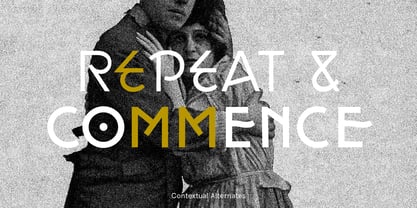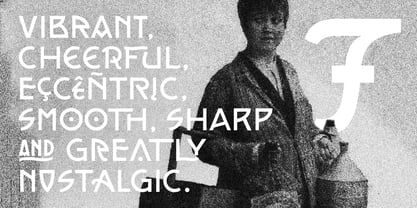
Fadista
by Alex Beck
Fadista Font Family was designed by Alex Beck and published by Alex Beck. Fadista contains 4 styles family package options.
Fadista is an eccentric experimental typeface, inspired by the Portuguese fado music and letterings by the artist Stuart Carvalhais (1887–1961), created throughout the 1920ies and 1930ies. A strong and clean presence with a touch of quirky gives the typeface its overall character. Fadista includes various OpenType features that allow tailoring the type to custom needs, encouraging graphical exploration. Fadista is the result of meticulous research, graphic reinterpretation and systematization of the glyph palette, taking into account modern font standards. Balancing between a historic heritage and „hipster“ contemporary looks, Fadista represents a discourse about aesthetics, trends and currentness in graphic design. The stylistic variations of the glyphs in fadista work in an additive fashion, rather than completely altering the look of the typeface. This means that a basic framework of glyphs remains unaltered, while certain subgroups of characters are affected by the style choices. Through this behavior, stylesets in fadista work as a switch for the type of contrast you’d like entwined in the overall look of the typeface. Other unique features include stylistic alternates for specific glyph combinations, ligatures that allow internal character spacing and tiny diacritics that flow within cap height along normal height glyphs. Please note the lowercase characters within Fadista are uppercase alternates. Math operators are fully supported, as well as a wide range of symbols and punctuation. Supported Languages: Albanian, Danish, Dutch, English, Finnish, French, German, Icelandic, Italian, Malagasy, Norwegian, Portuguese, Romansh, Spanish, Swedish and Turkish. For further language support don‘t hesitate to get in touch. Fadista was awarded the Art Directors Club Bronze in the junior competition 2014 and the DDC Award 2014 in the category "Future“.
Alex Beck is a graphic designer currently based in Frankfurt, Germany. His focus lies in art direction, typography, branding, interface design, type design, poster design and editorial design.